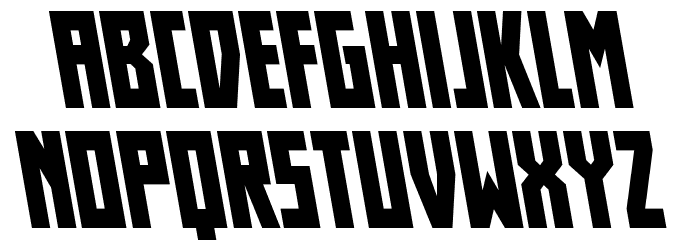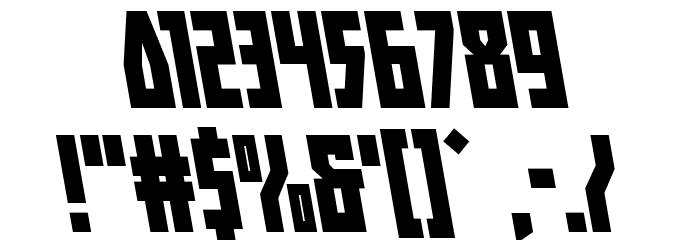
Her Champions Leftalic Font
This font features a bold and angular design, characterized by its sharp edges and geometric shapes. The uppercase letters are particularly striking, with a distinct slant that gives a sense of movement and dynamism. The numbers and special characters maintain this angular style, ensuring consistency throughout. The font's boldness and unique style make it stand out, suitable for projects that require a strong visual impact. Its design is reminiscent of modern, futuristic aesthetics, making it ideal for creative and innovative applications.
A bold, angular font with a dynamic, futuristic style.
- Proposed Projects: Ideal for posters, logos, and branding materials that require a strong, modern look.